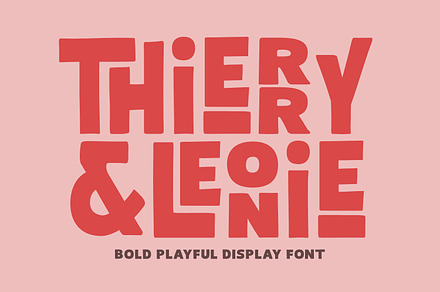
Thierry Leonie – Bold Playful Font
A bold playful font with rounded weight and irregular baseline movement, giving a set word a bouncing rhythm.
Baseline variation is what produces the bounce, and building it into the font means the effect appears automatically rather than requiring manual adjustment.
- Built-in baseline variation
- Alternates for rhythm control
Made for
- Childrens and family branding
- Food and confectionery packaging
- Event and party graphics
- Social and merch design